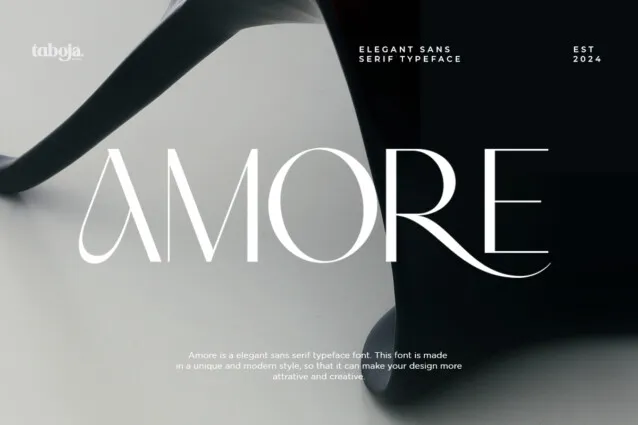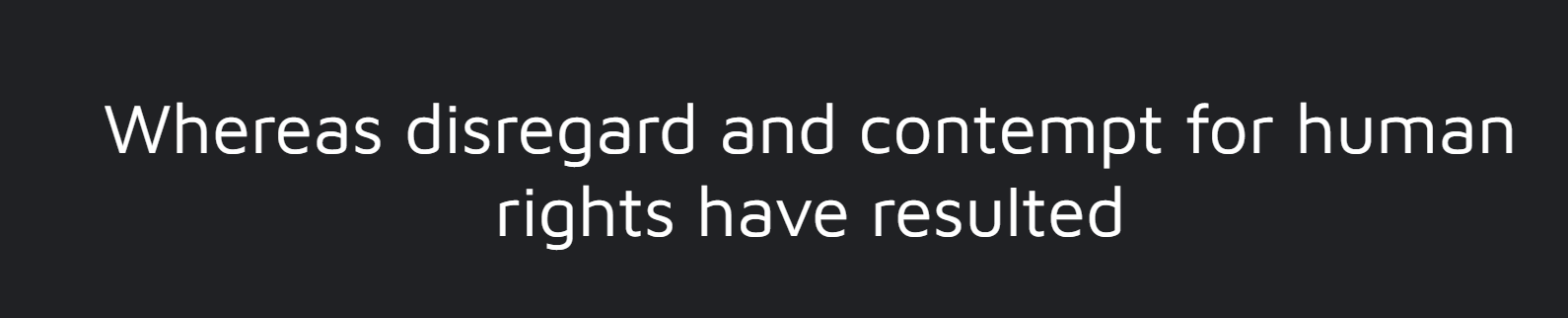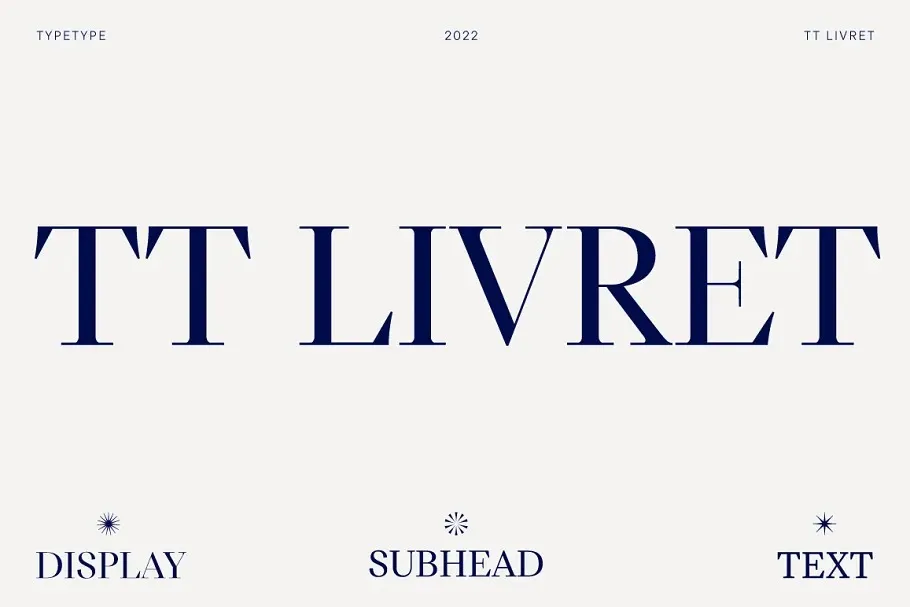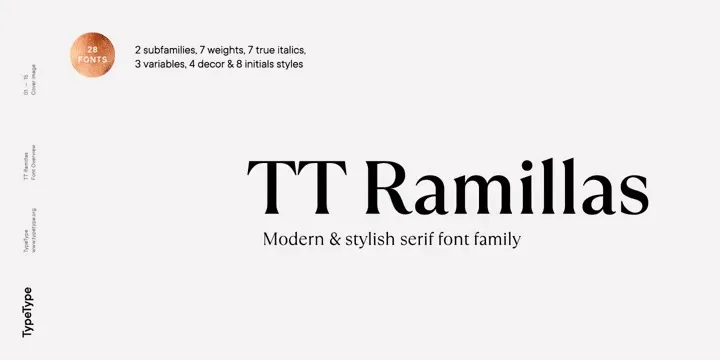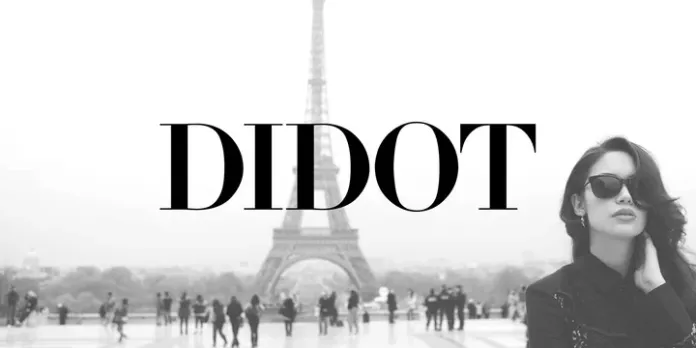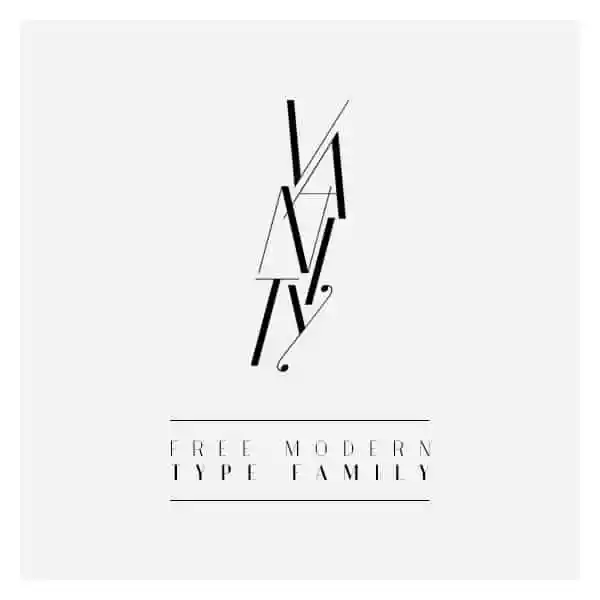
Best Font for Logos Design for Graphic Designers: Enhance Your Brand Identity
Creating the perfect logo is essential to building a strong brand identity, and choosing the right font is a vital part of that process. A well-chosen font can convey your brand’s personality, values, and professionalism. In this guide, we’ll explore the best fonts for logo design, helping you make an informed decision for your next project.
Categories for best fonts for logos.
Serif
Serif fonts are known for their curvy edges and decorative strokes. Serif fonts represent luxury, class, seriousness and elegance. These are mainly used in newspapers, law firms, schools etc.
San serif
San serif fonts are known for being sleek and not having curved edges, giving them a clean and modern appearance. San serif fonts are famous for their readability and simplicity and are mostly used in tech brands and digital screens.
Script fonts
Script fonts are represented as handwritten calligraphy and cursive appearance. They are mostly used by beauty and fashion brands. Script fonts are elegant and can add a creative touch to logos.
Display fonts
Display fonts convey a bold statement and are perfect for creative industries, entertainment and any brand that wants to leave a bold impression on their audience.
Top 5 Free Serif fonts for logos
TT Livret
TT Livret is an elegant and functional serif font that works well for modern logo designs. It has a calm and refined look that fits with various brand identities.
TT Ramillas
TT Ramillas is a modern font which represents premium and luxury status. It is suitable for logos of clothing boutiques, perfumes, jewellery, and other high-end brands
Vanity
Vanity is a classic modern serif font available in a range of weights from thin italic to ultrabold. It works for magazines, fashion spreads, promotional materials, and classy modern designs.
Bodoni
Bodoni is one of the most popular and professional serif fonts for logos. It represents elegance and sophistication that builds authority and trust. Bodoni is a great choice for traditional or luxury brands.
Didot
Didot is another popular serif font for logo designs. This font works well for fashion, beauty, and other luxury industries.
Top 5 Paid Serif Fonts for Logos
Colgent Serif
A unique and premium modern serif font used in feminine logo designs and editorial designs such as newspapers, magazines, catalogues, book covers, packaging designs etc.
Neigh – Modern Luxury Logo Font
A modern vintage serif font known for its stylish ligatures, special alternative glyphs and multilingual support. It contains five font styles(Thin, Regular, Medium, Bold and extra bold). It can be used in headings titles, magazine titles and print formats.
Qwergi – Logo Font
Qwergi is a modern logo serif font with elegant strokes used in various social media designs, Logos, advertisements and product designs.
Bestogram – Logo Font
A modern serif font with a contemporary and luxurious feel. It can be used in various projects such as jewellery logos or any brand representing luxury and class.
Fasrie – Luxury Modern Logo Font
It is also a modern serif elegant and premium font used for headings, logos, branding, magazines, packaging designs and wedding invitations.
Top 5 free professional San serif fonts for logo
Public sans
Public Sans is a versatile font developed by the United States Web Design System (USWDS). It conveys professionalism, modernity, Simplicity, and trustworthiness.
Maven pro
Maven Pro is great for logos fonts, headlines and label designs. This font contains 6 font types ( Regular, Medium, SemiBold, Bold, ExtraBold and Black)
Amore Typeface
It is an elegant San serif font with traditional lines that give it a luxurious feel. It works best with luxury brand logos.